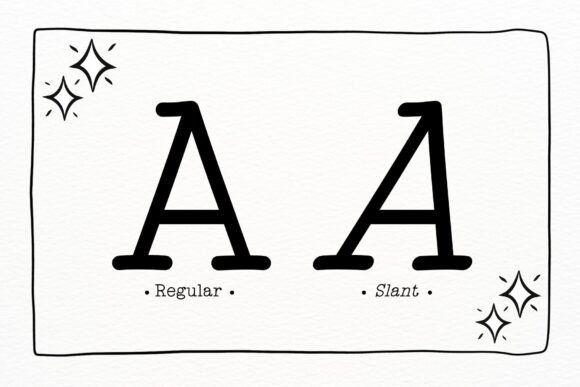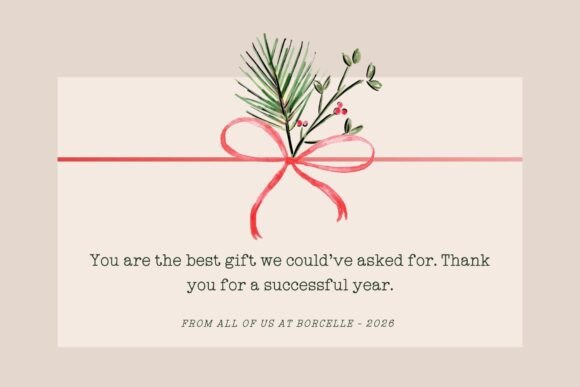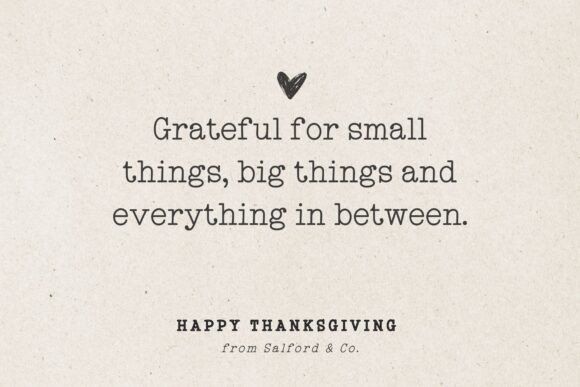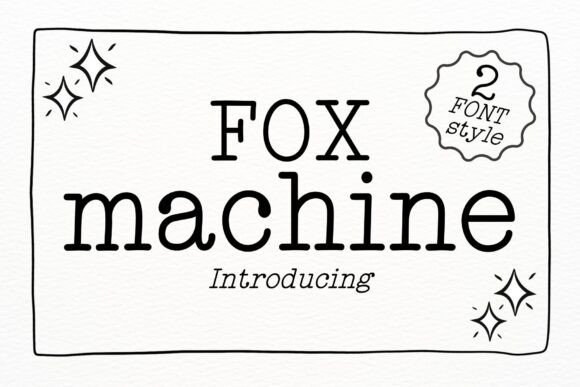
Introduction to Fox Machine Font
Fox Machine is a stylish and playful slab serif font with a touch of vintage charm.
It comes in two distinct styles: Regular and Slant, allowing for versatile design applications The bold yet soft letterforms give it a friendly yet strong character, making it perfect for branding, headlines, posters, logos, and editorial designs.
Key Features of Fox Machine Font